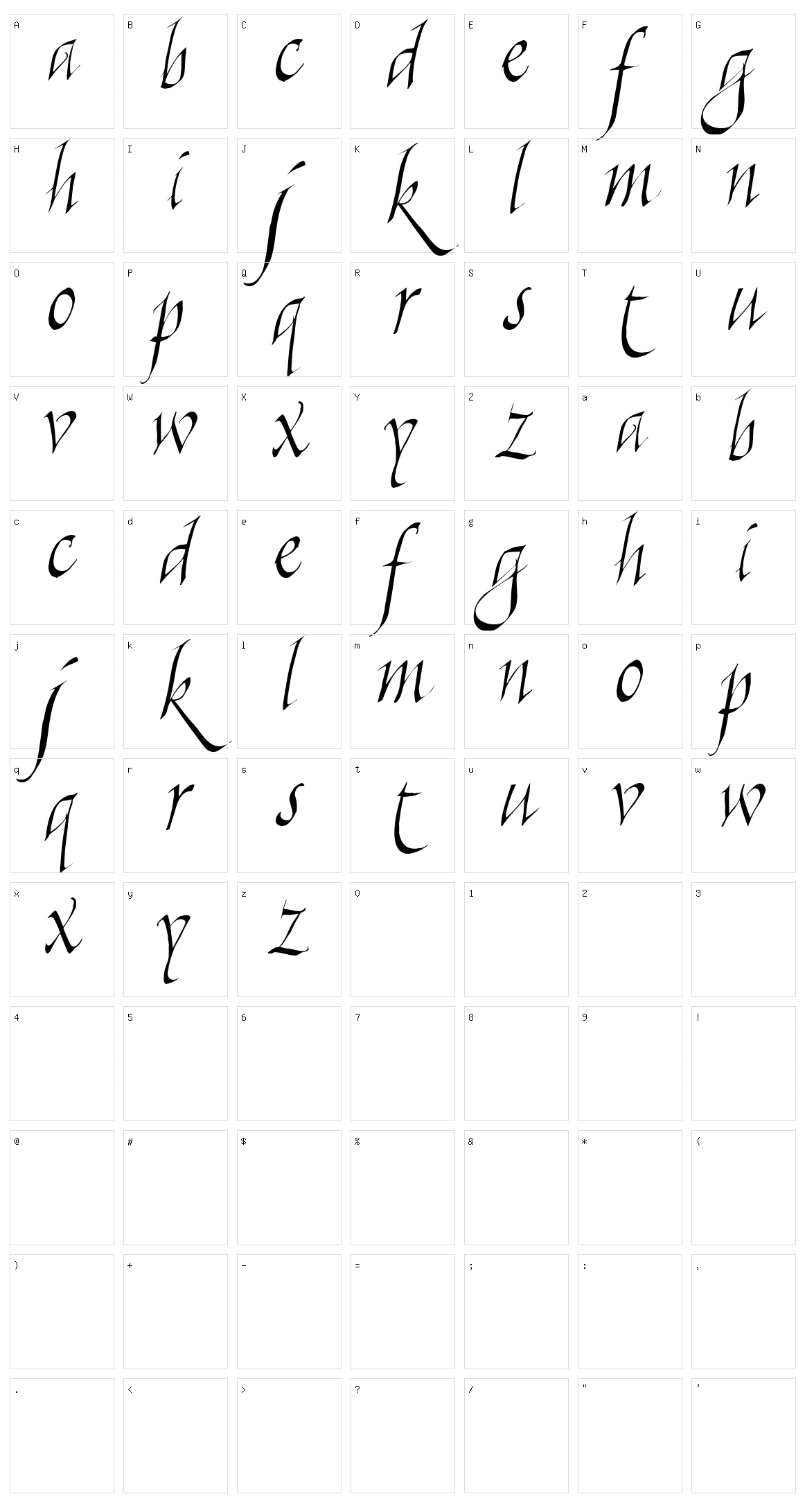
The free font Killigraphy is carefully designed by Toxic Type, showcasing a thoughtful balance of creativity and usability and falls under the Script font style. When you download the ZIP file, it contains only 8.33 KB of font files, making it lightweight and quick to download. Please review the license details below to understand permitted usage and distribution rights. If license information is not available, we recommend using this font for personal projects only or contacting the author directly for commercial usage permissions.